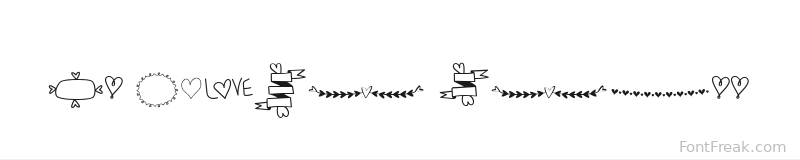
MF Heart Stuff
About MF Heart Stuff
MF Heart Stuff, designed by Misti Hammers, is a charming decorative font that captures the essence of love and whimsy. This unique typeface falls into the display category, making it ideal for projects that require a touch of personality and flair. Characterized by its playful strokes and delightful heart motifs, the font showcases a light-hearted design that stands out in any context. The stroke weight is consistent yet slightly varied, creating an organic feel, while the spacing between letters is thoughtfully arranged to ensure readability without compromising its artistic appeal.
This font is particularly suited for a variety of creative applications. It shines in wedding invitations, where its romantic flair can beautifully convey heartfelt sentiments. Additionally, MF Heart Stuff is perfect for greeting cards, adding a special touch to personal messages. It can also enhance restaurant menus by incorporating a fun and inviting aesthetic, ideal for cafés or bistros. For content creators, this font is excellent for social media graphics, enabling posts to capture attention with its distinctive charm.
Targeting graphic designers, small business owners, and content creators alike, MF Heart Stuff offers a versatile option that appeals to anyone looking to infuse their work with a playful spirit. The font supports a wide array of creative projects, providing users with the tools to express their unique vision.
What sets the MF Heart Stuff font apart is its ability to combine whimsical design with practicality. The heart elements and playful curves make it a standout choice for anyone seeking to add warmth and charm to their projects. With its freeware license, you can easily access and incorporate this delightful typeface into your designs. For those interested, the MF Heart Stuff font free download is readily available, making it an accessible choice for all your creative needs.